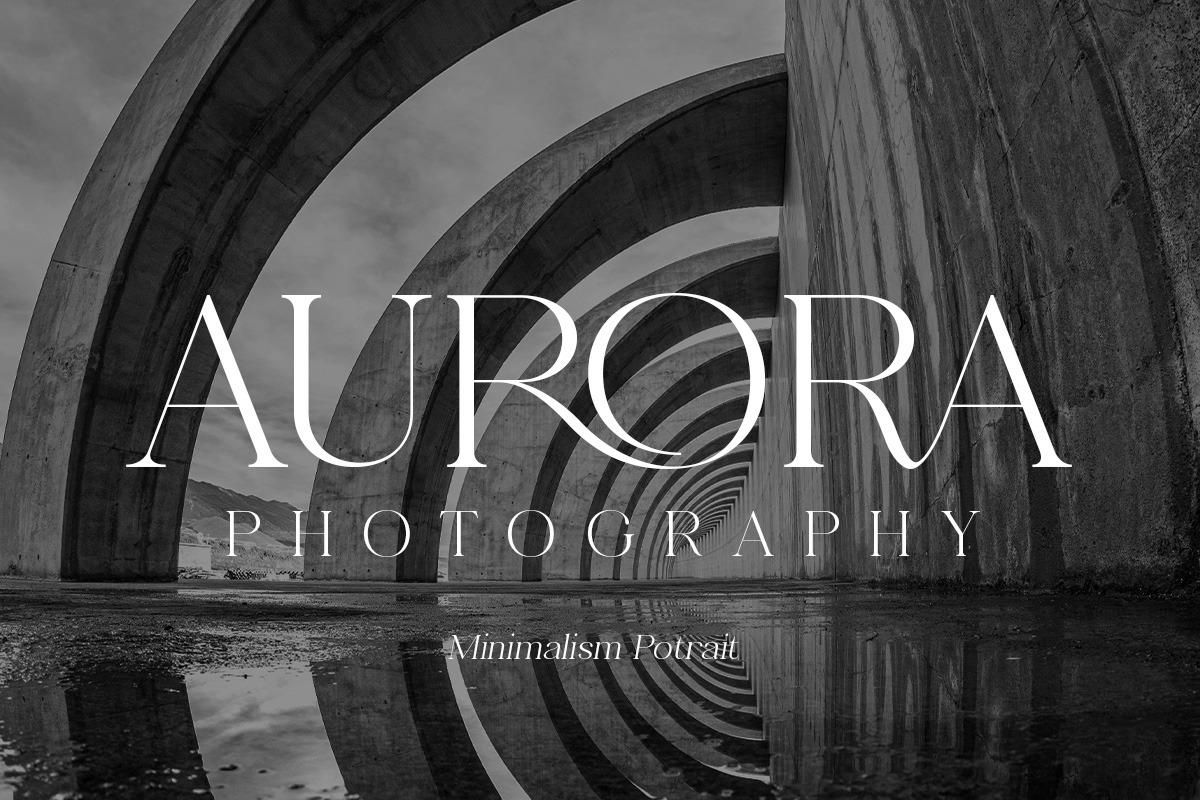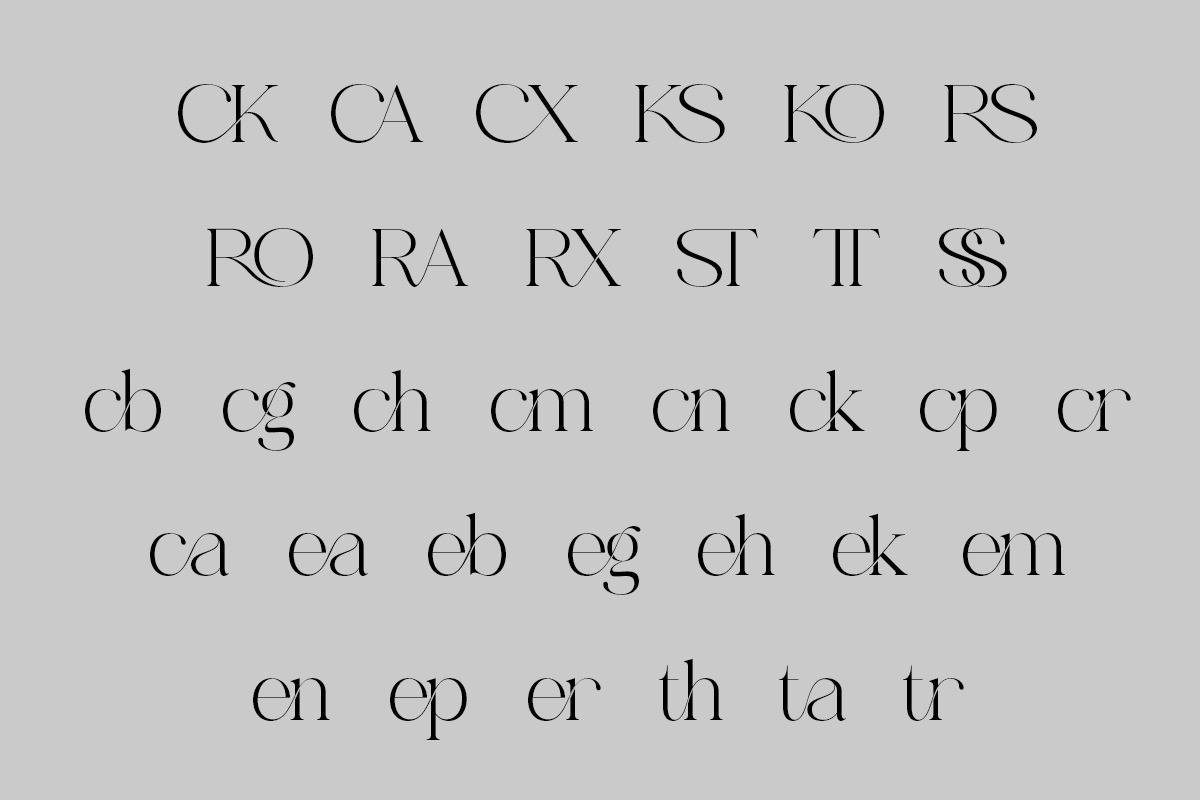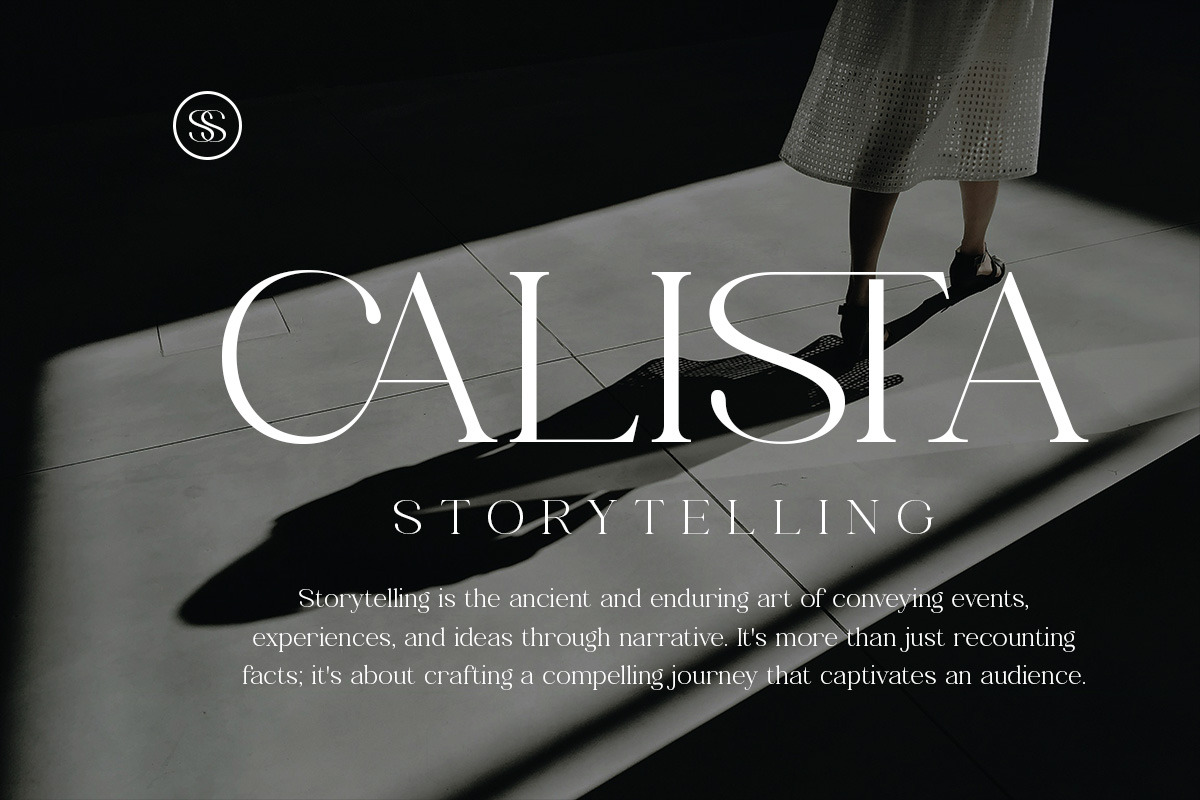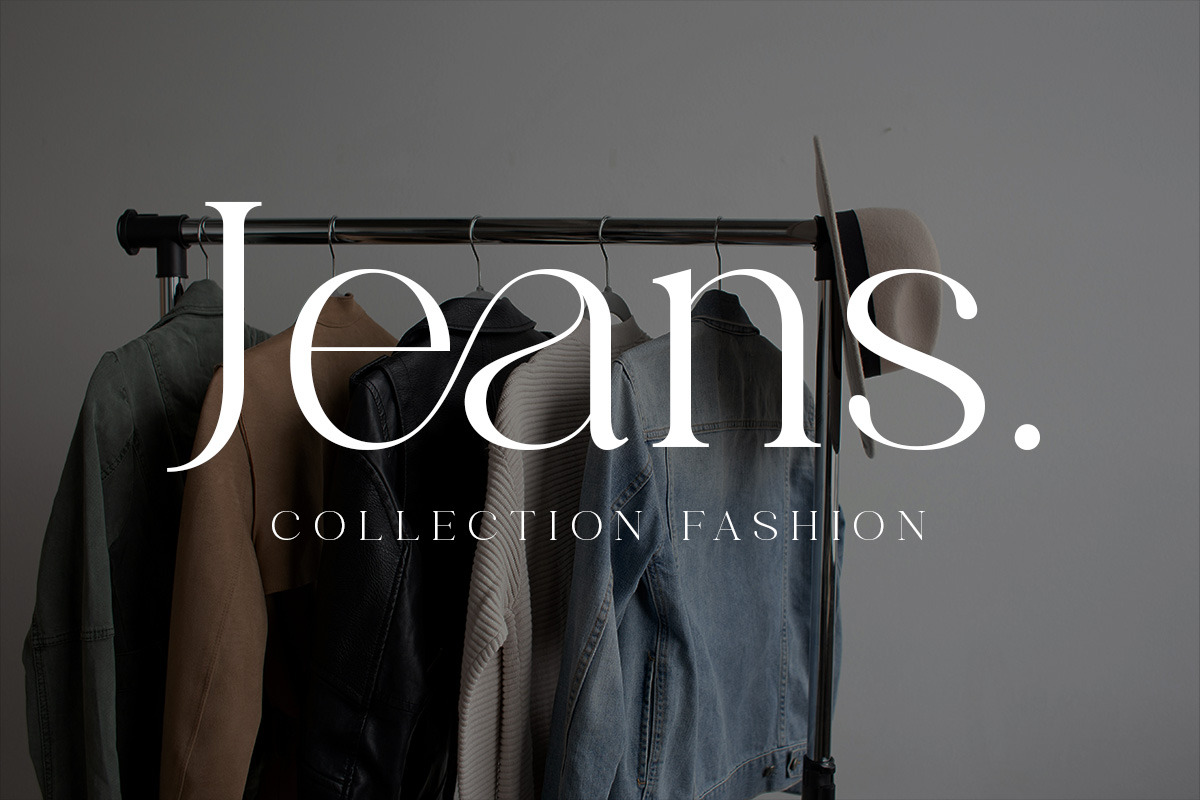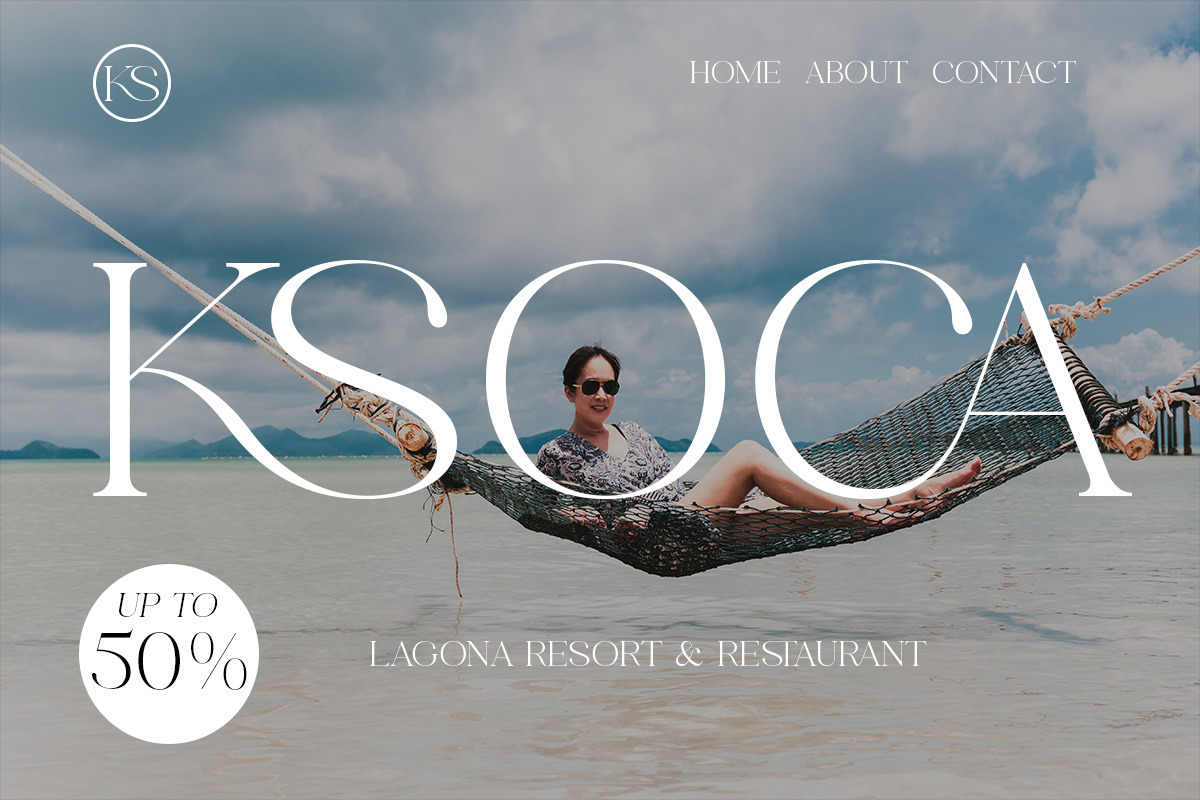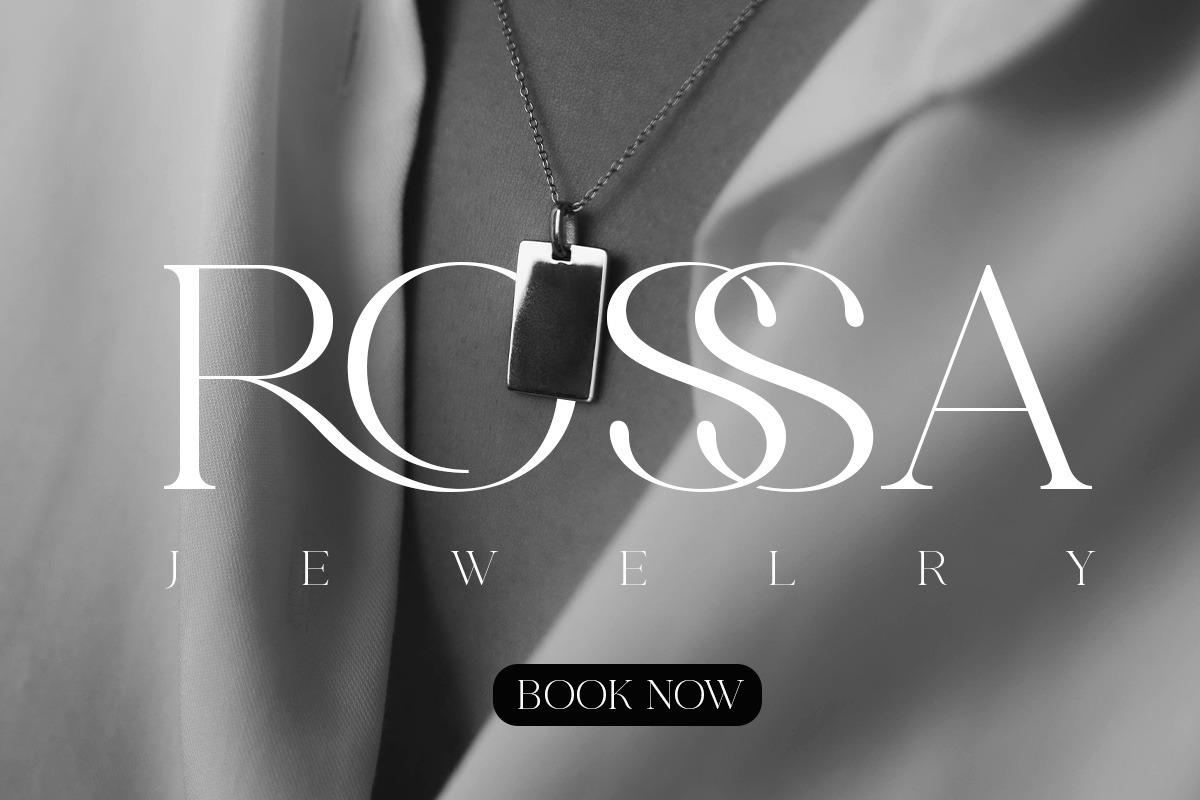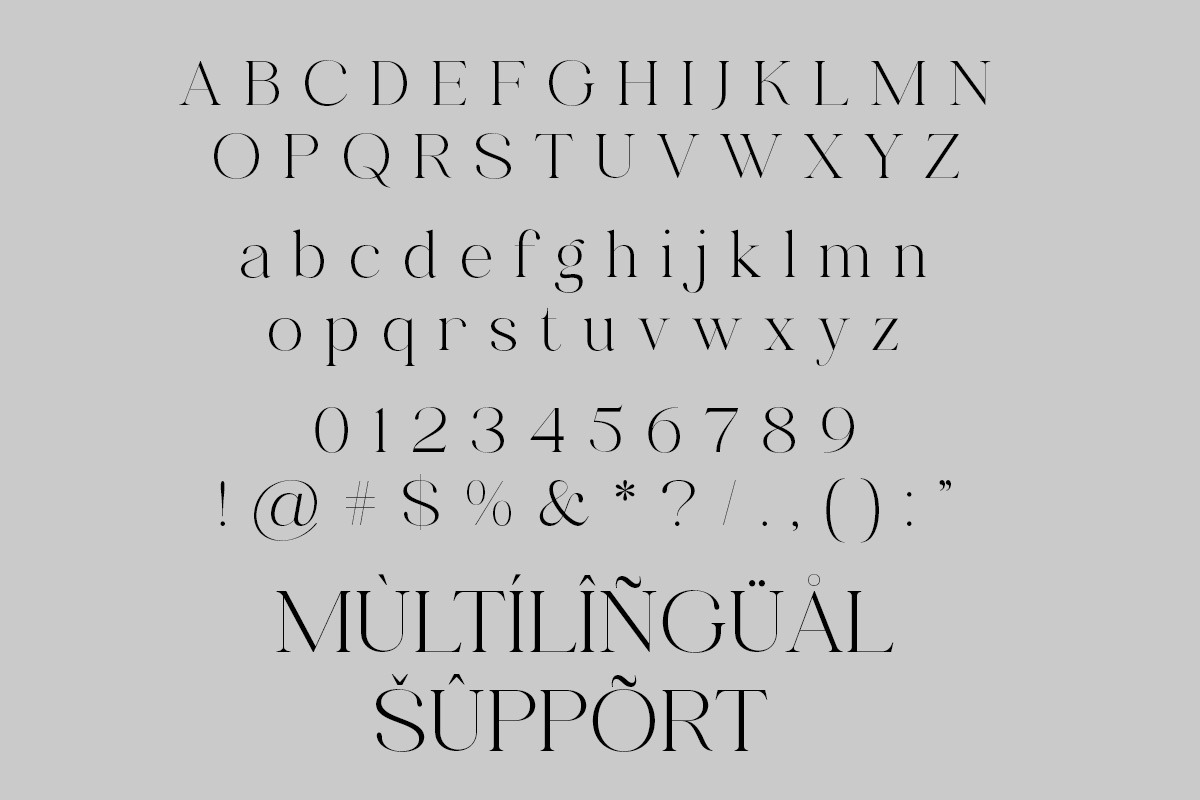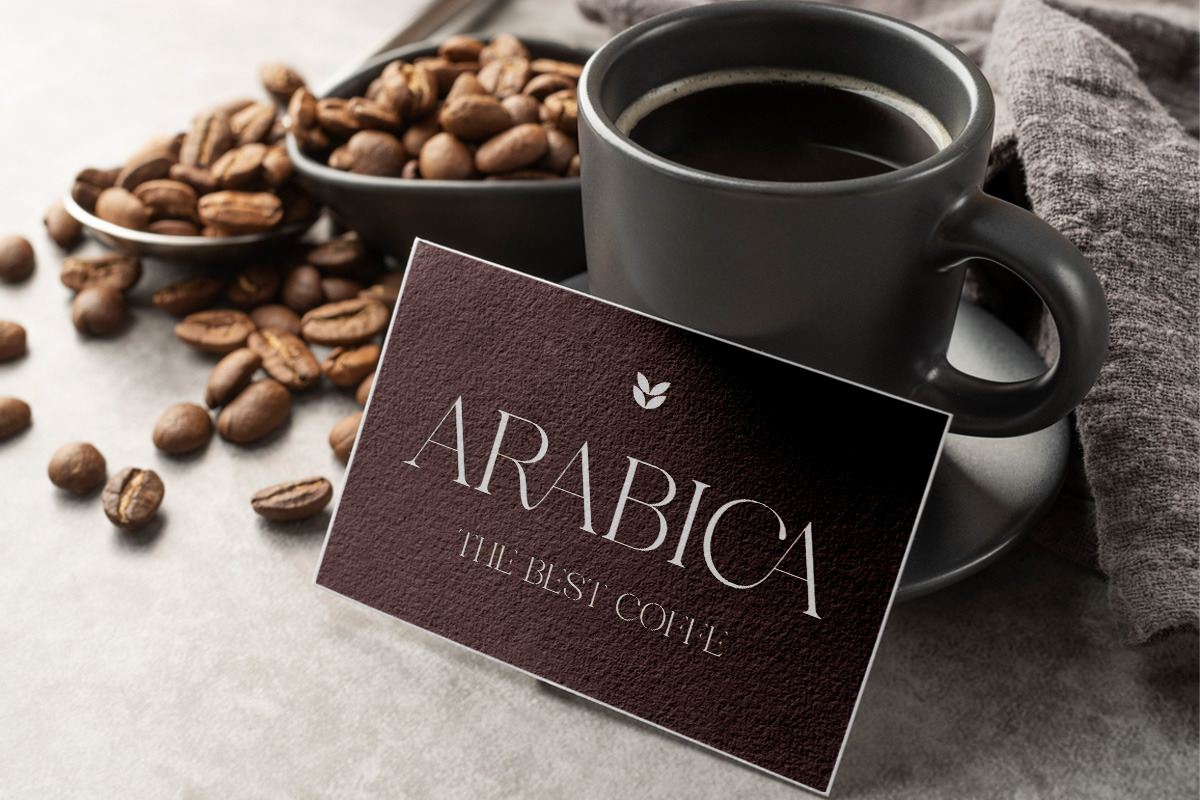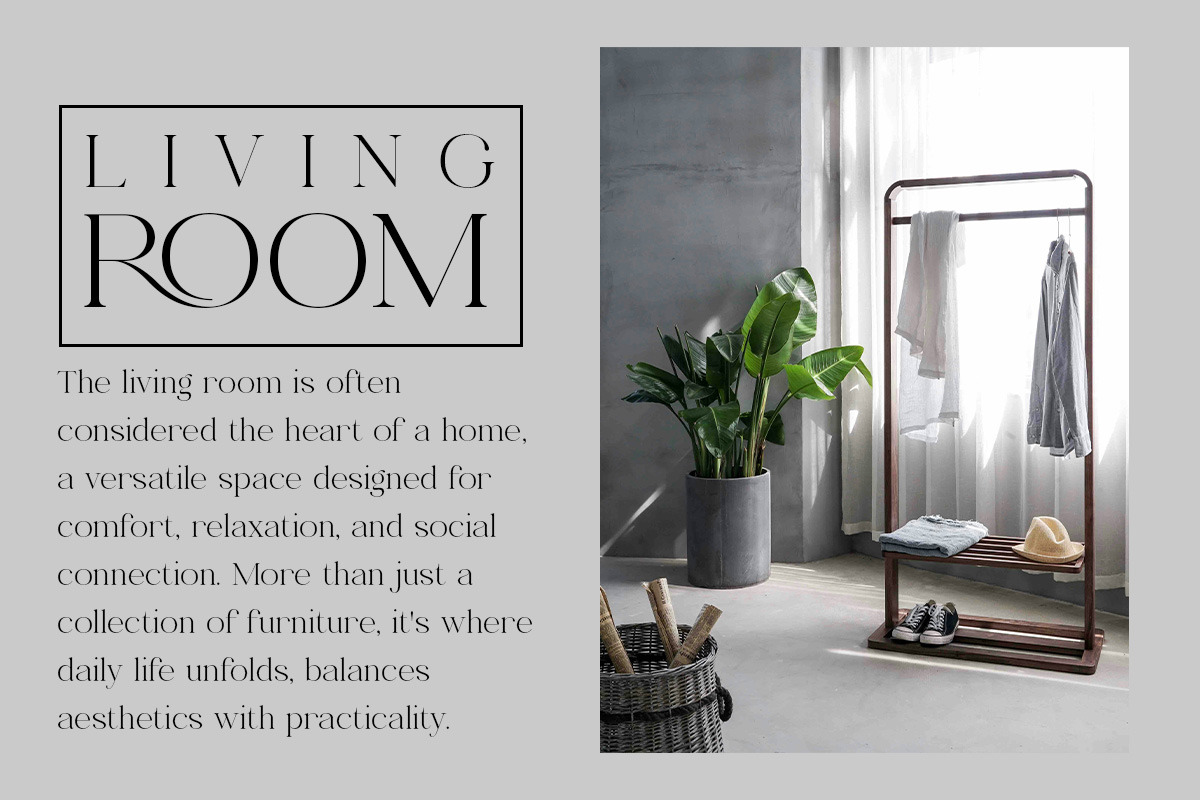
Qitae - Modern Elegant Luxury
Qitae is a sophisticated modern serif font designed with high contrast strokes, graceful curves, and refined details.
Perfect for premium branding, editorial headlines, invitations, and luxury packaging, Qitae delivers timeless elegance with a contemporary touch. Every letterform is crafted to exude class and elevate your design aesthetics.
Bring a luxurious, modern vibe to your projects with this statement typeface.
- Regular & Italic
- Stylish alternates & ligatures
- High-contrast elegant serif forms
- Luxury branding & logos
- Wedding invitations
- Editorial headlines
- Fashion campaigns
- Boutique packaging
- Premium product design
Elevate your typography with timeless elegance.